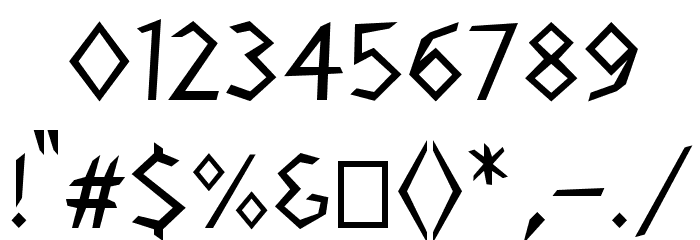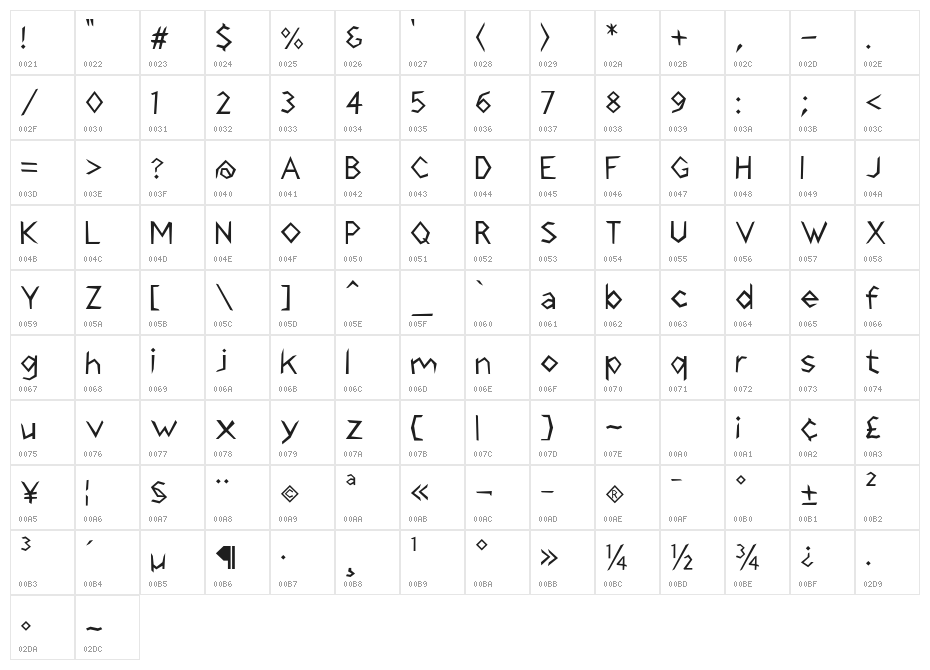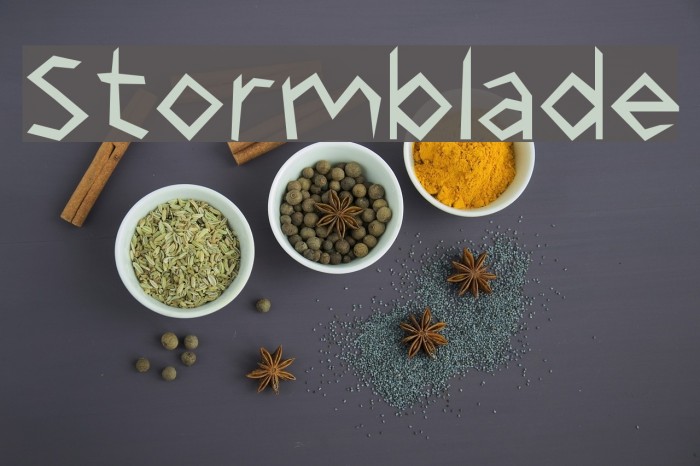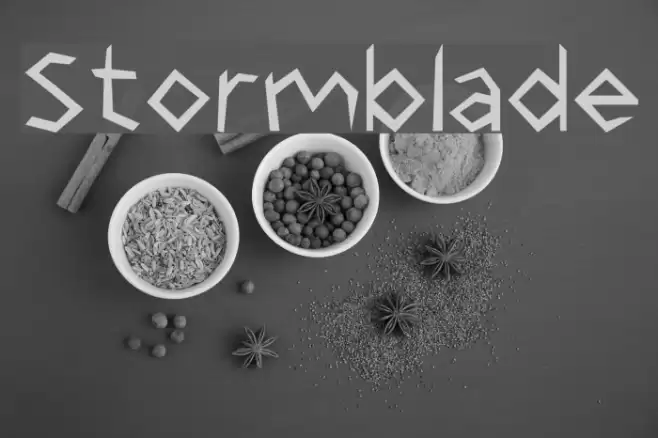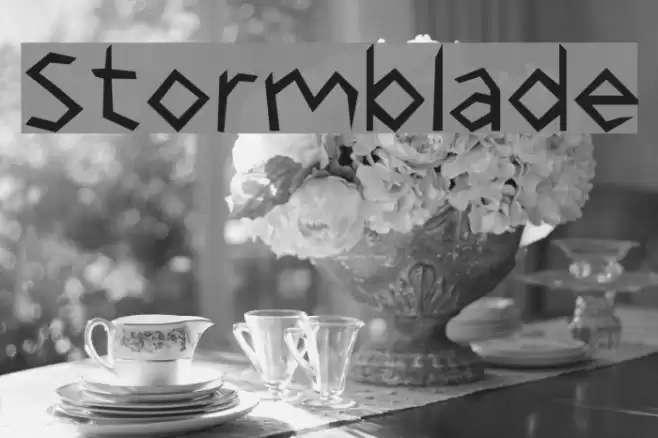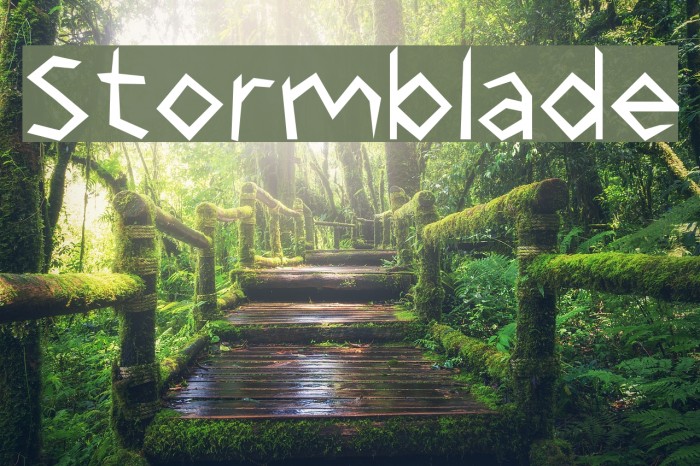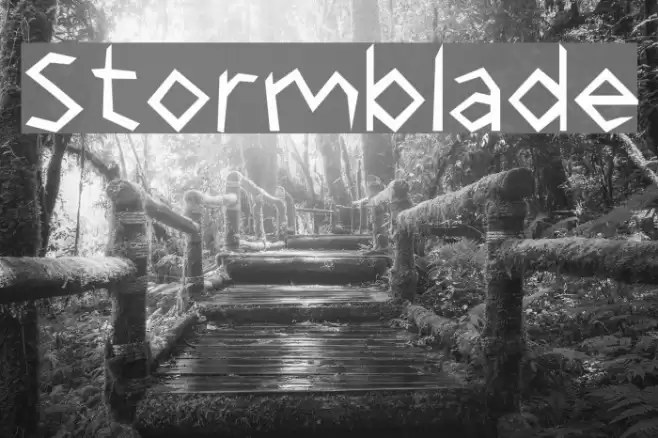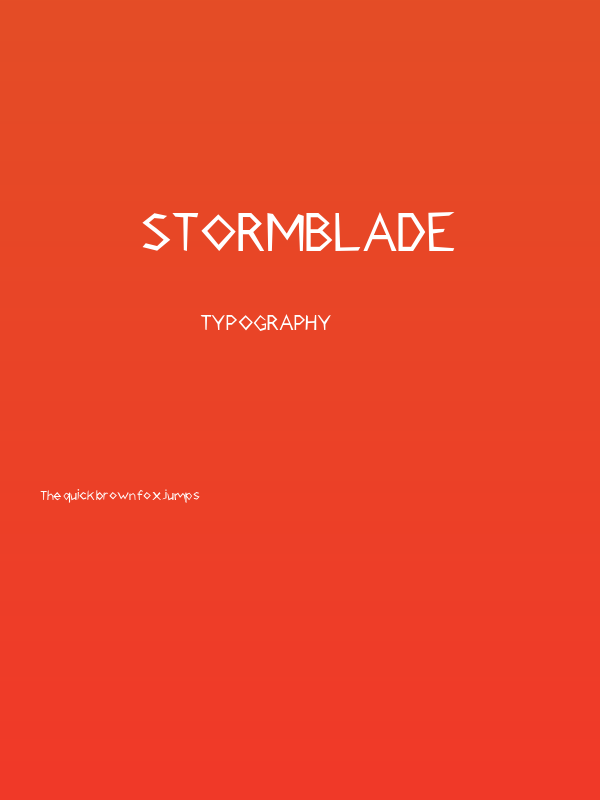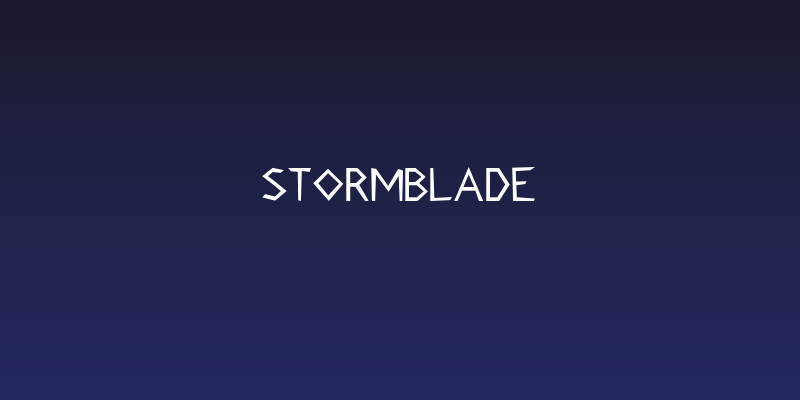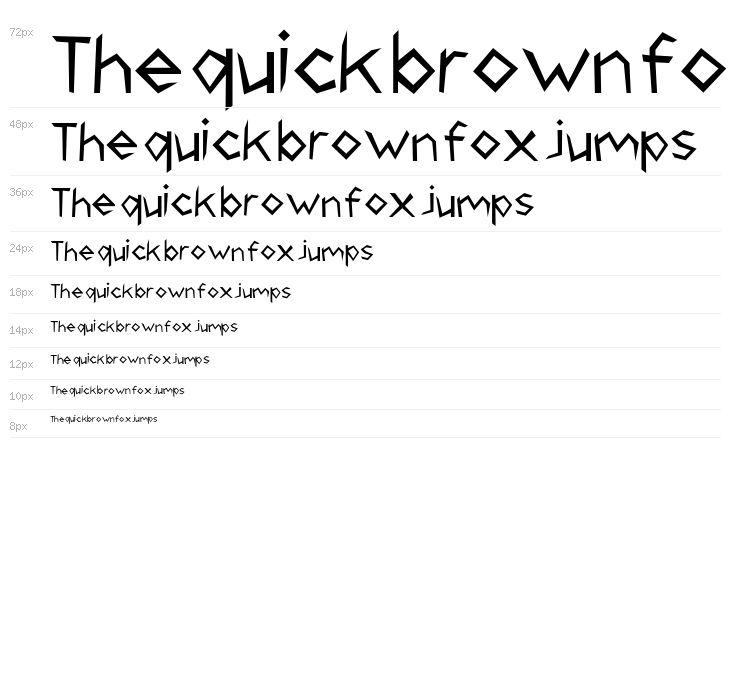
Stormblade Font
Stormblade Description
This font features a bold and edgy design with sharp, angular lines that give it a dynamic and aggressive appearance. The uppercase and lowercase letters maintain a consistent style, with each character exhibiting a unique, jagged form that suggests movement and energy. The numbers and special characters follow the same aesthetic, ensuring a cohesive look across all text elements. The font's distinct style makes it ideal for projects that require a strong, impactful visual presence, such as branding for extreme sports, video game titles, or action movie posters. Its boldness and unique character shapes make it stand out, while the consistent angular theme ties the entire set together.
| Proposed Projects | Ideal for extreme sports branding, video game titles, action movie posters, and edgy graphic designs. |